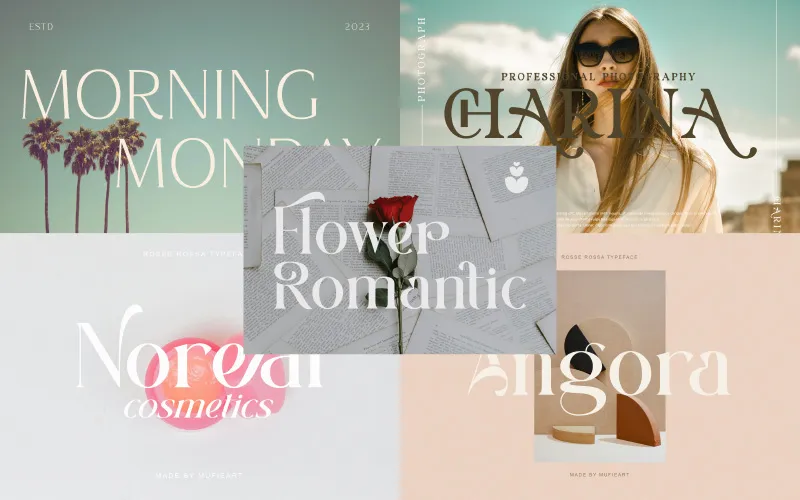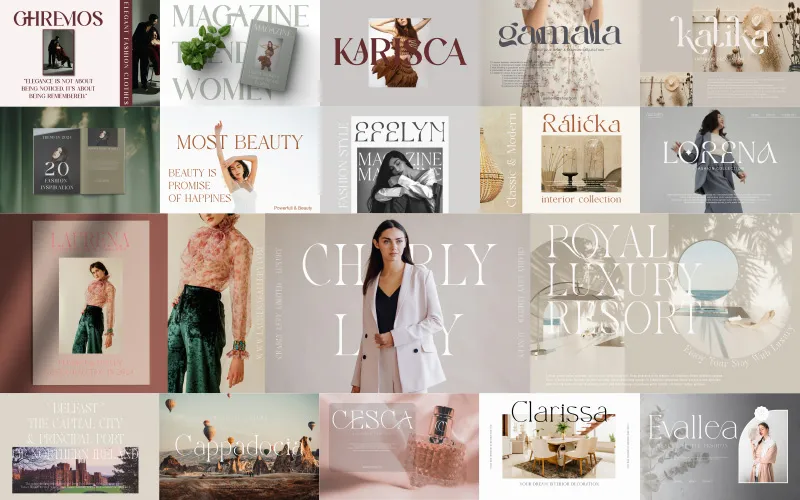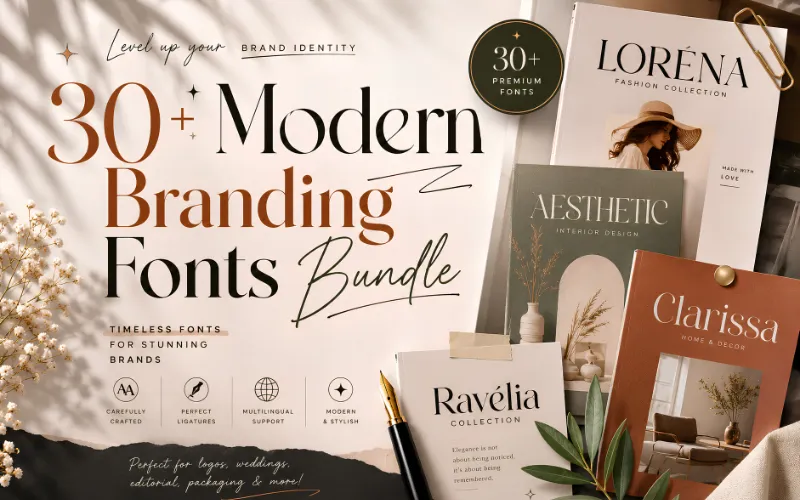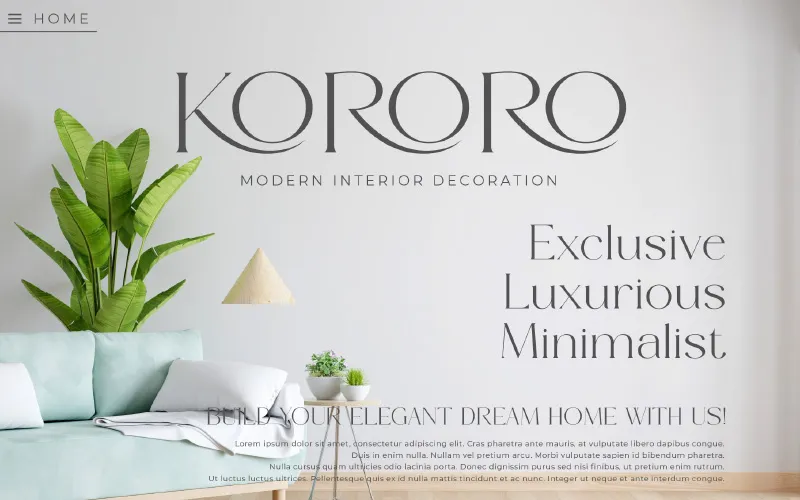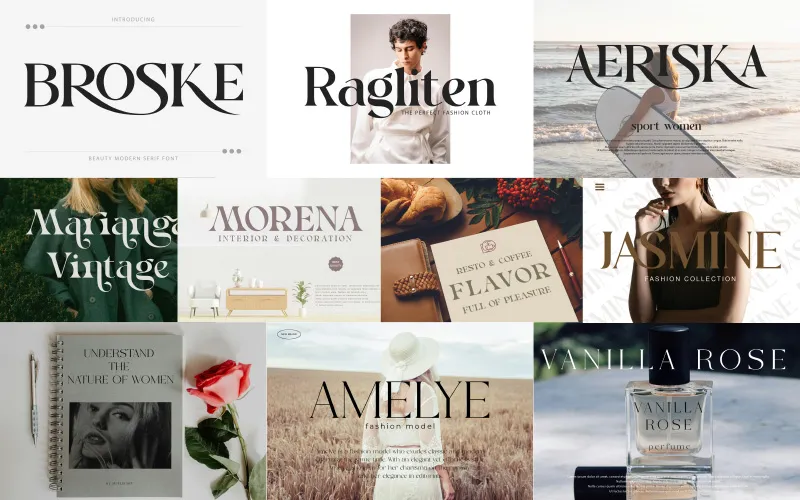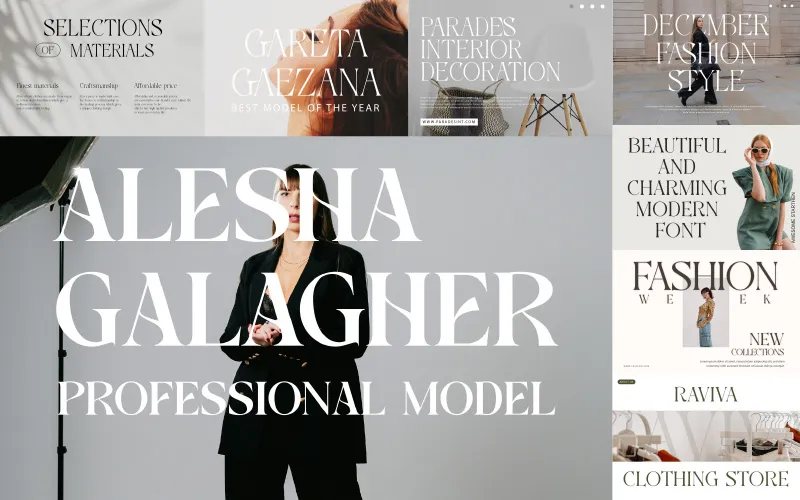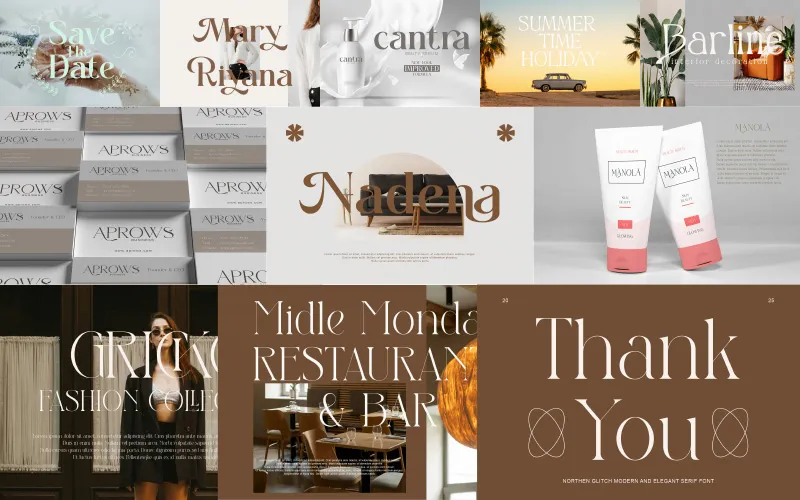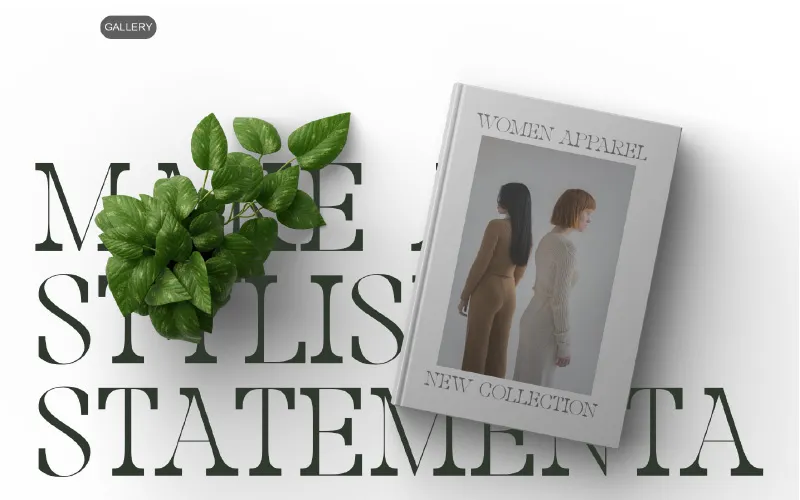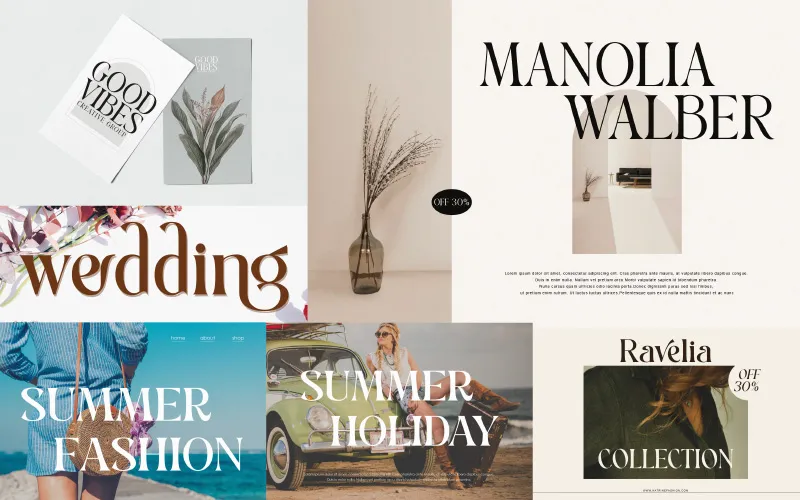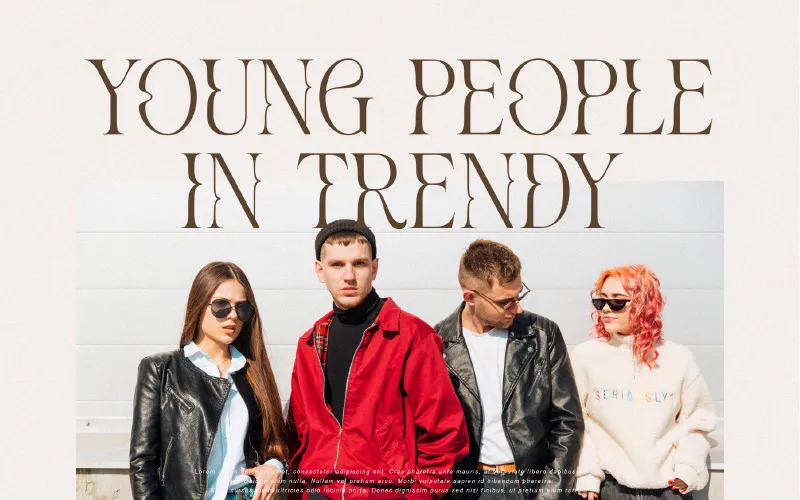
- Create premium logos, branding, packaging & social media designs
Are Your Logos And Branding Still Using Ordinary Fonts?
The right branding font can instantly make your logos, packaging, websites, and marketing materials look more premium, elegant, and memorable.
Modern Branding Fonts Bundle
A collection of 30+ modern branding fonts designed to help you create stunning logos, brand identities, wedding invitations, social media graphics, & elegant typography with ease.
From luxury branding and modern logos to sophisticated typography and stationery, this bundle offers versatile typefaces that make every project look polished and professionally designed.
It also includes Ligatures & stylistic alternates, making it ideal for creating unique branding projects for clients and audiences worldwide.
- 30+ Modern Branding Serif Fonts
- Elegant Logo & Branding Font Collection
- Uppercase & Lowercase Characters
- Numbers & Punctuation
- Multilingual Character Support
- Ligatures & Stylistic Alternates
Preview of the Modern Branding Fonts Bundle
Why Choose The Modern Branding Fonts Bundle?
- Build premium-looking brands with elegant, professional typography
- Create unique lettering using ligatures and stylistic alternates
- Use one versatile collection across branding, print, and digital projects